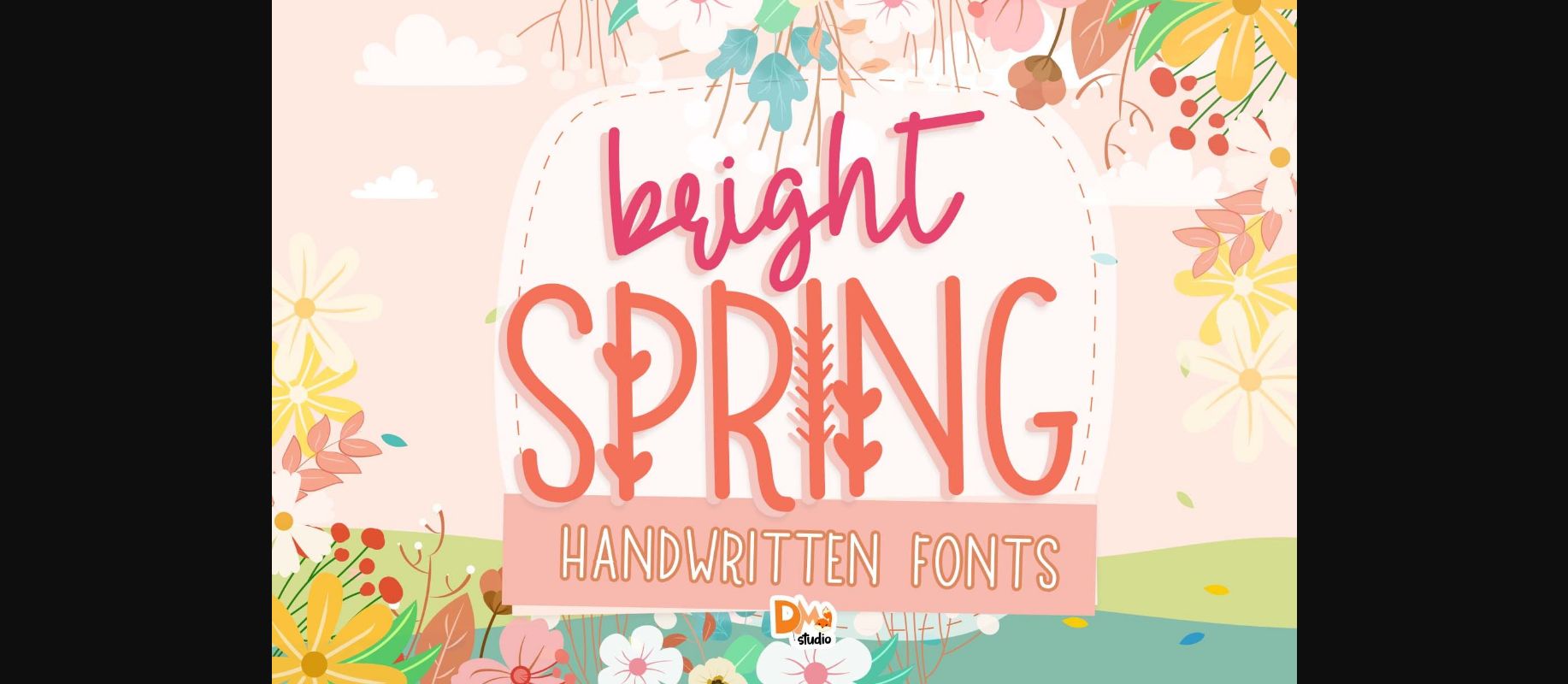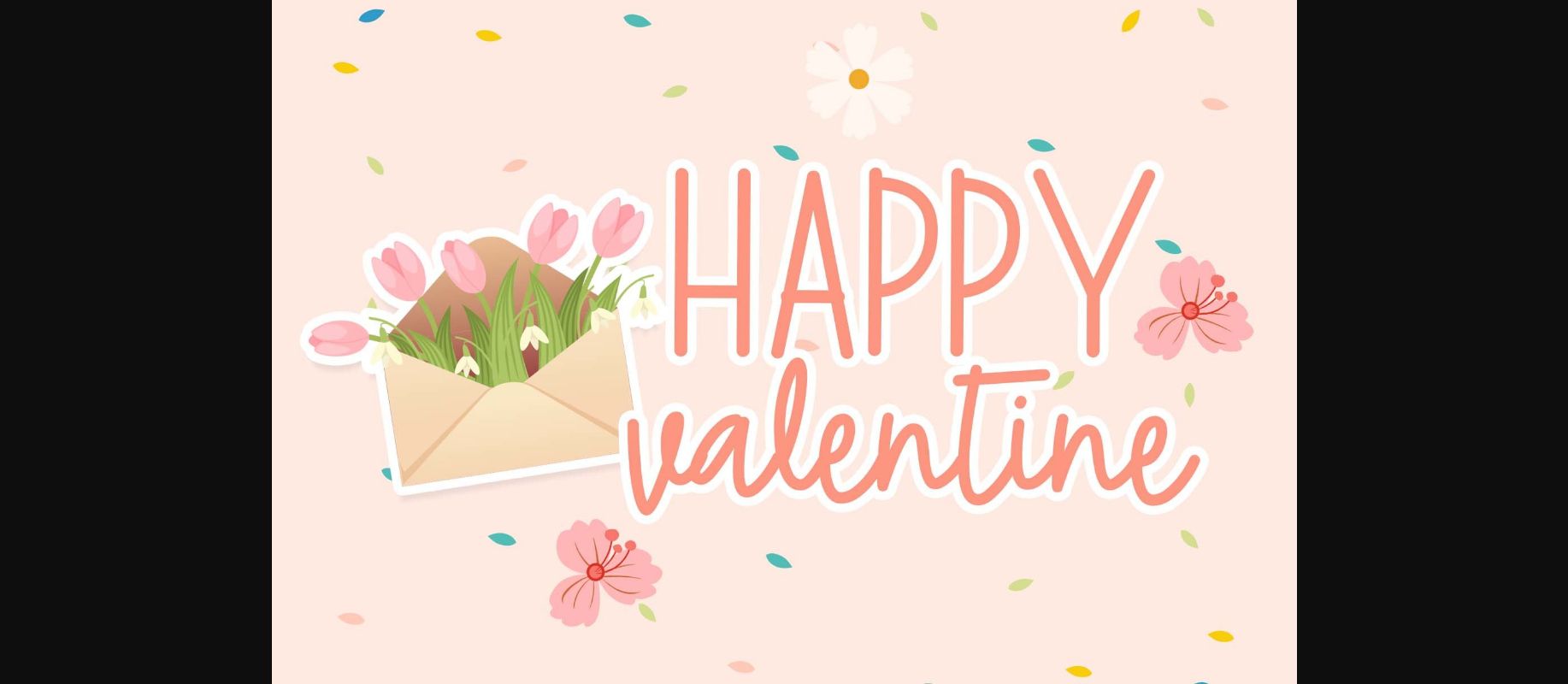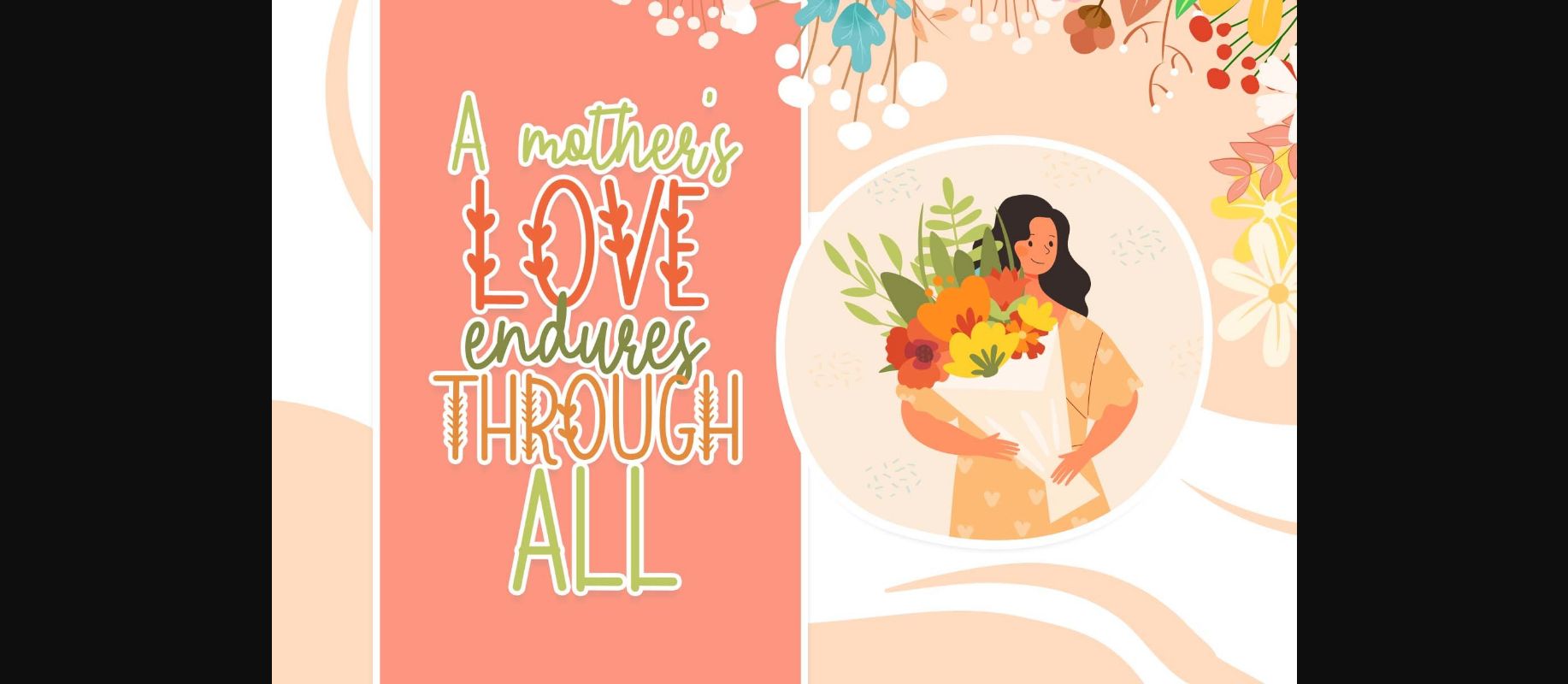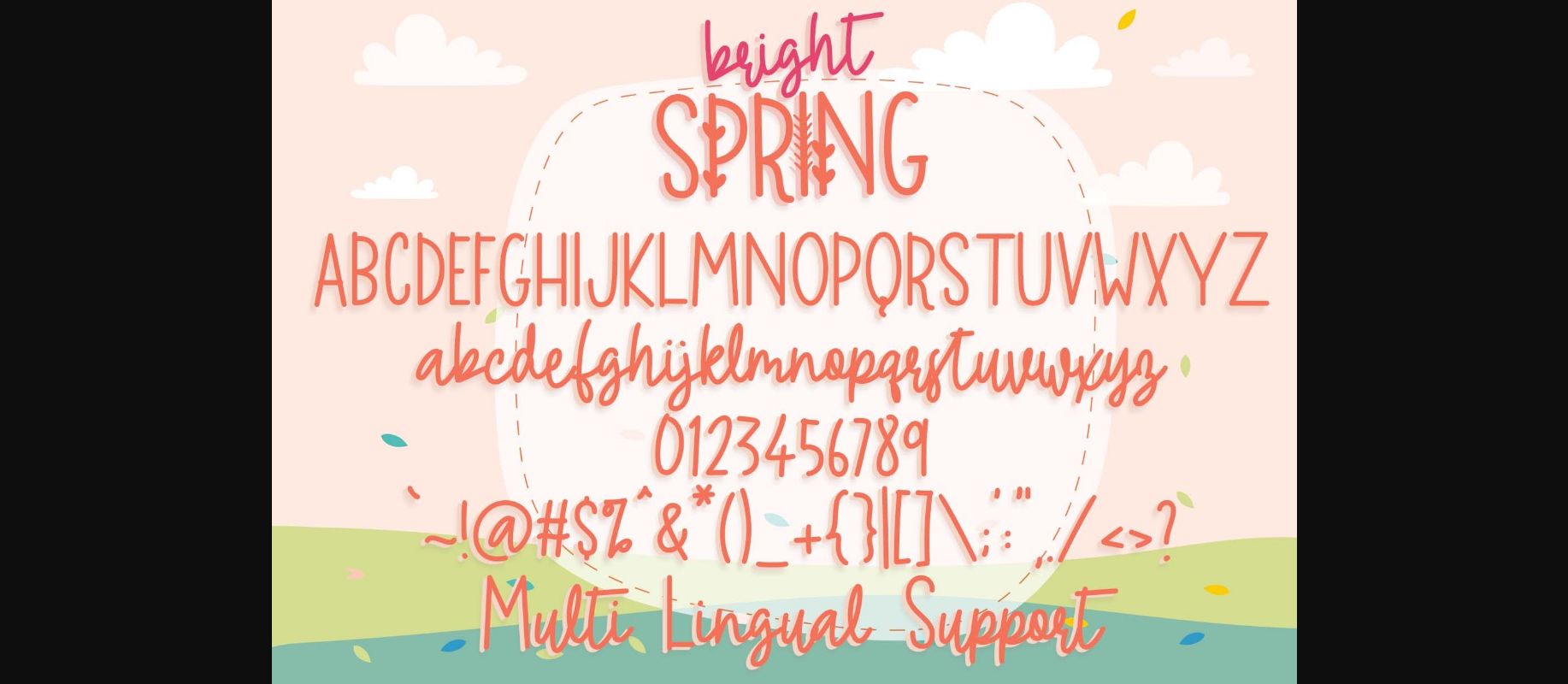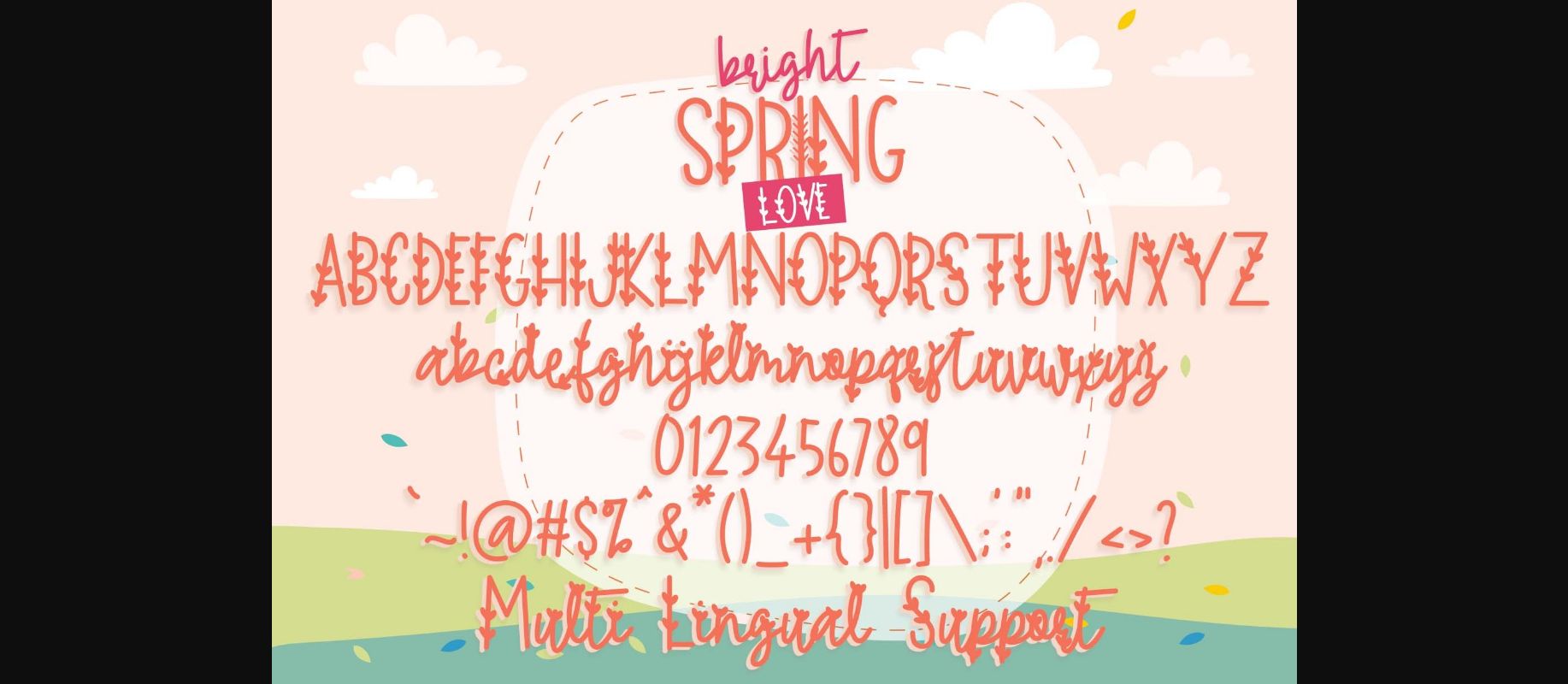
About Bright Spring Font
Bright spring is a cute font collection for the spring season. It’s an adorable duo (decorative and handwritten) that will fulfill all your design needs for spring!
Make your design and crafts more unique and full of brightness by using Bright Spring!